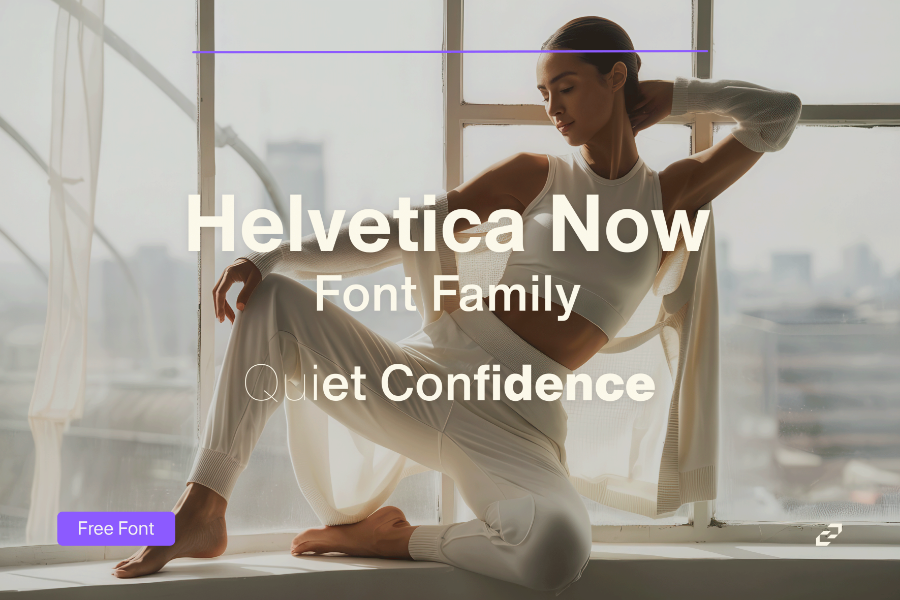
Helvetica Now - Quintessential Confidence in Clean Modern Typography
A refined and versatile update to a design classic—ideal for professional branding and UI design
Style: Neo-Grotesque Sans Serif
Best For: Corporate identity, product labels, digital interfaces, editorial layouts.
Key Features:
- Legendary design heritage
- Perfect balance of clarity and elegance
- Extremely versatile for all design needs